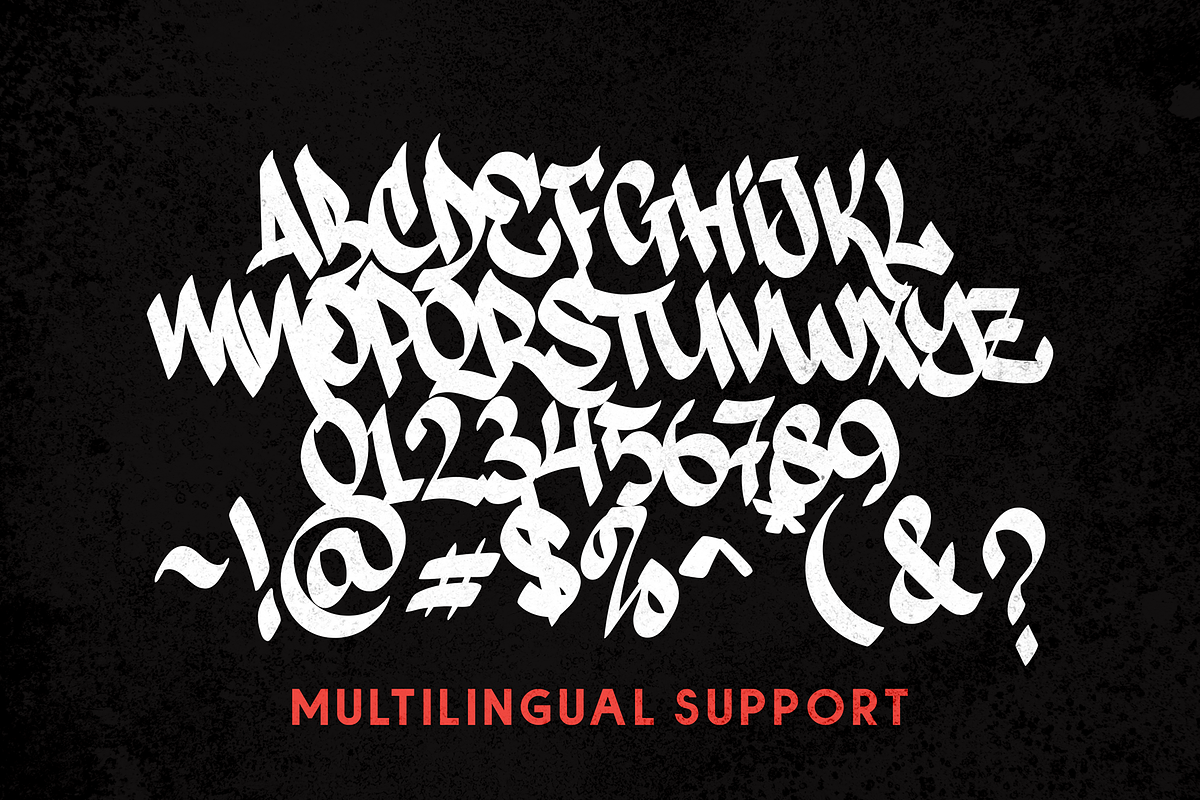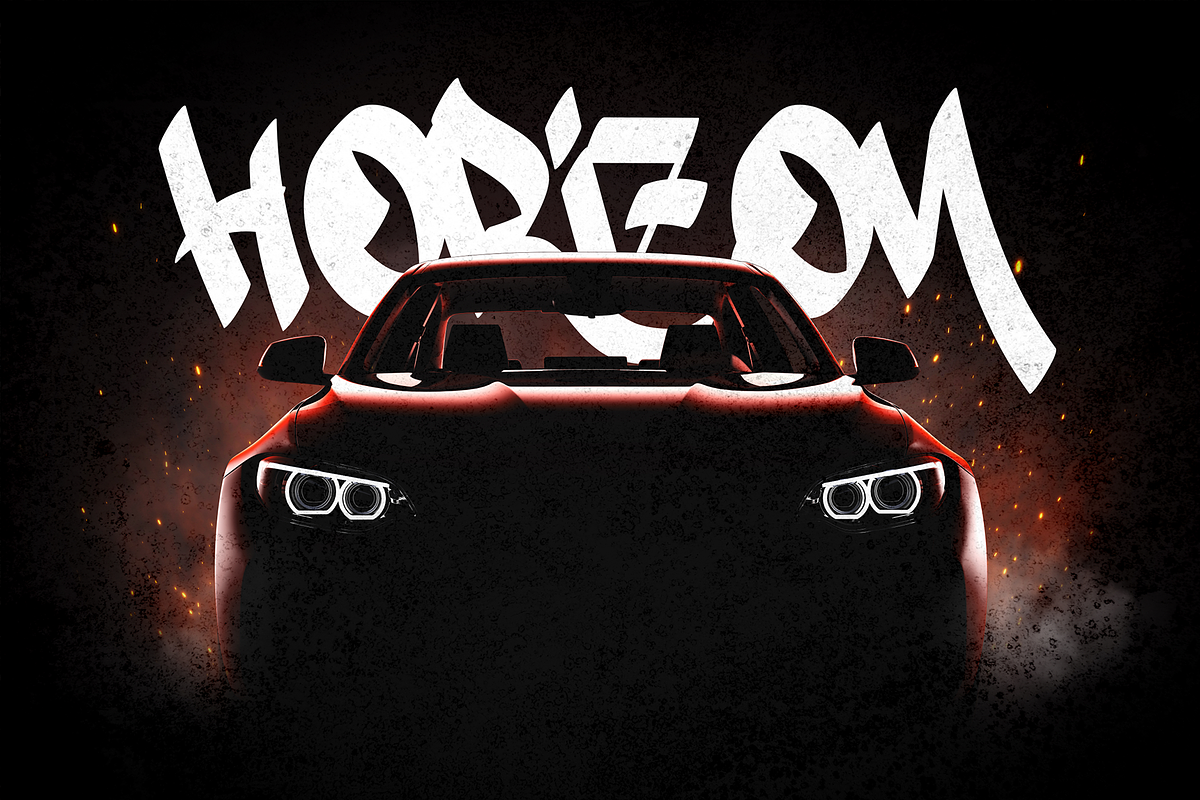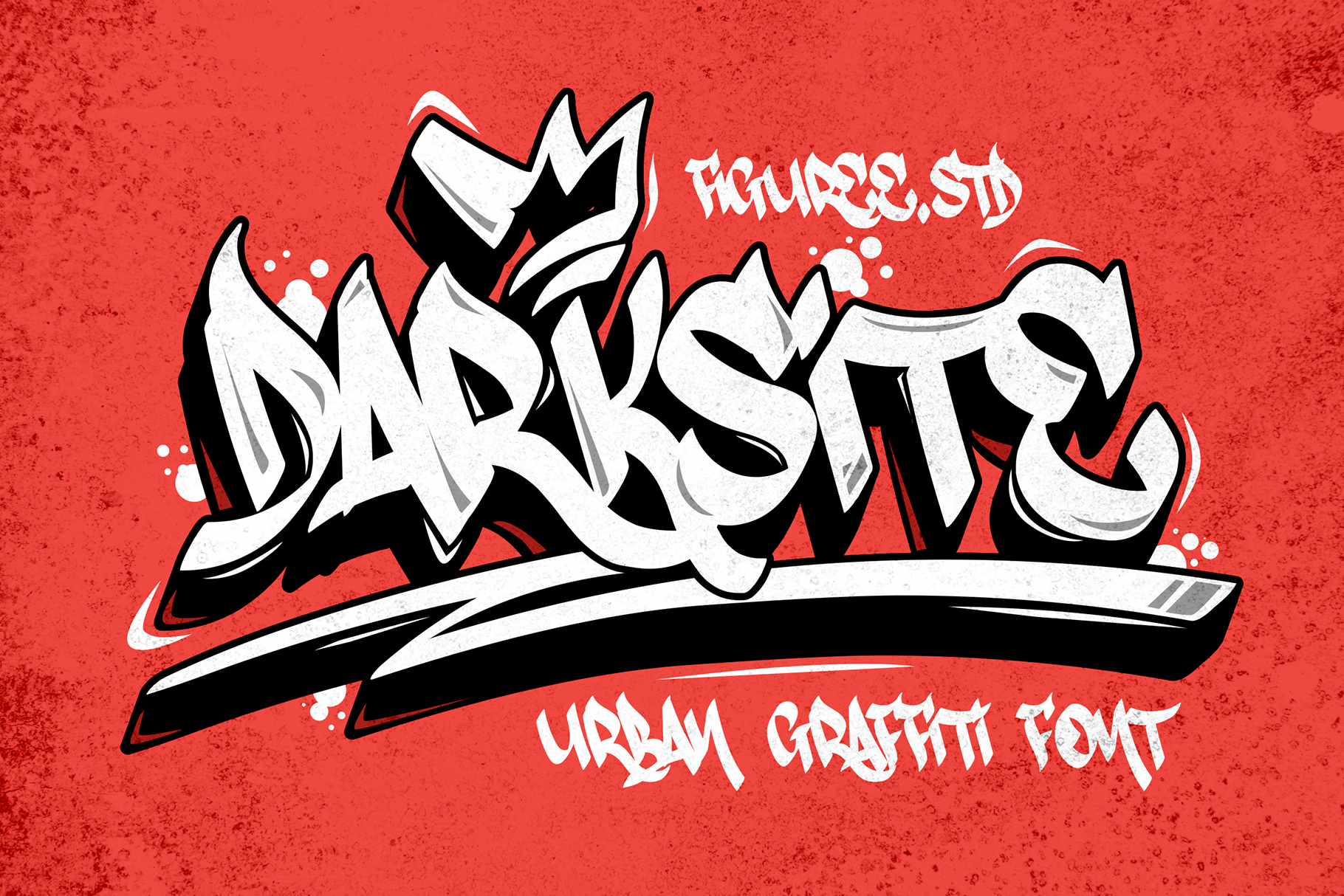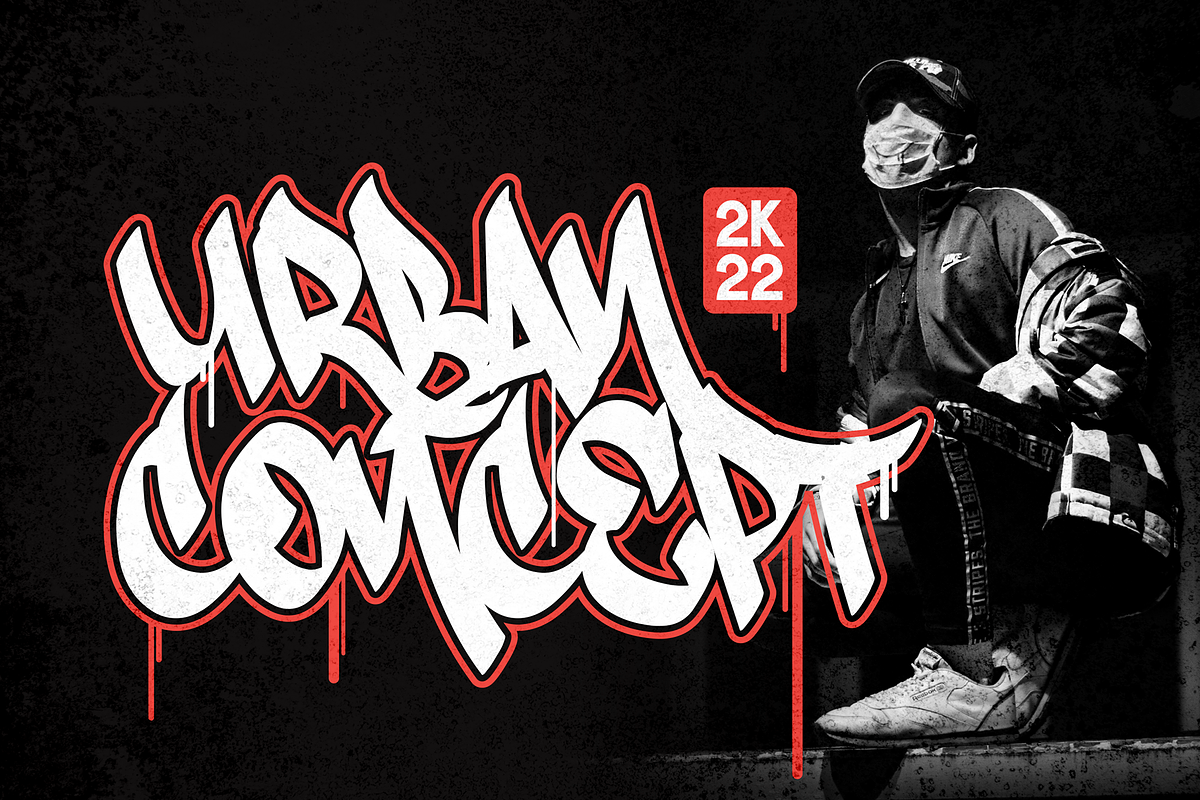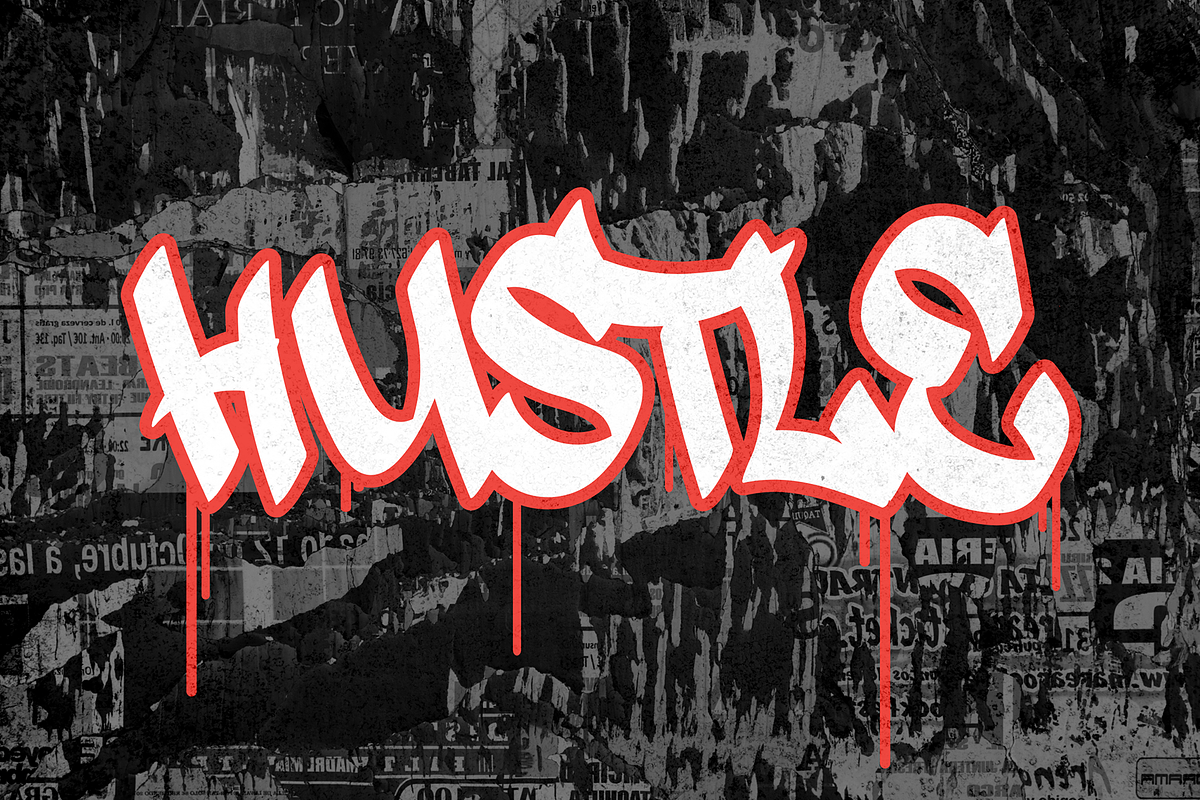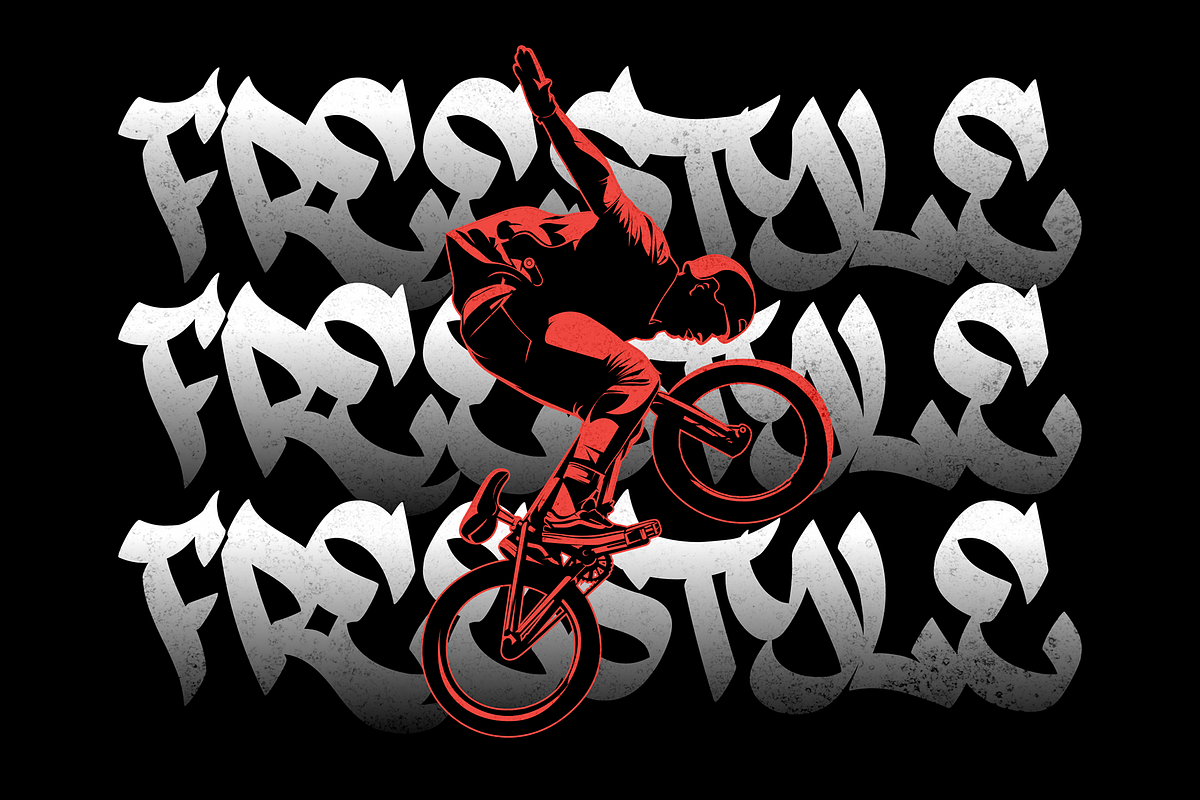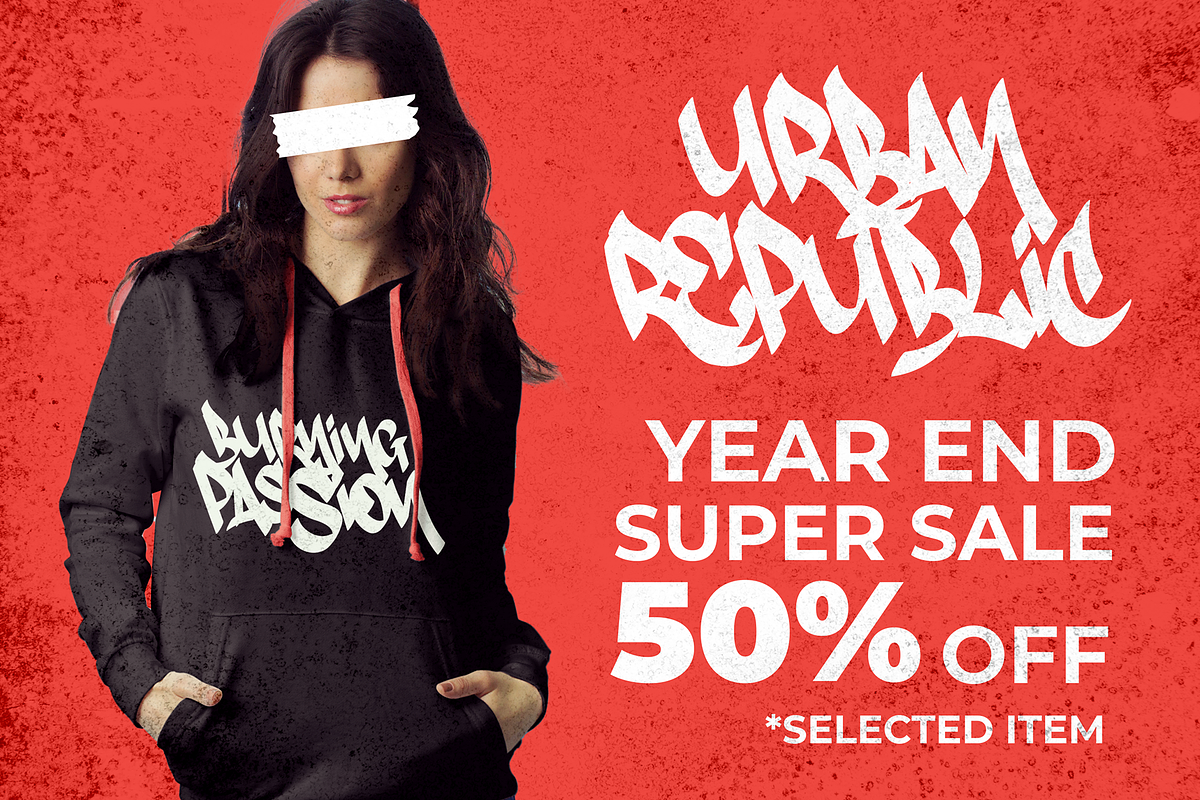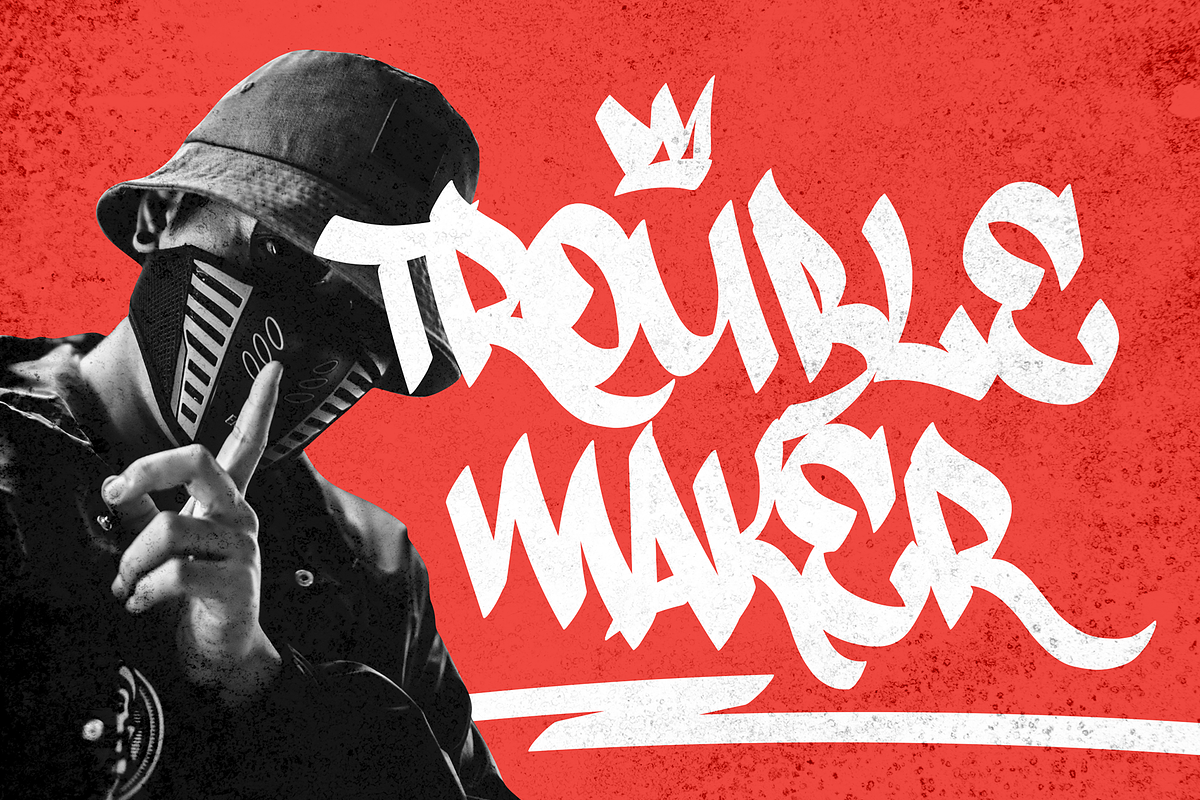
Darksite - Urban Graffiti Font
Hello, this is Darksite - Urban Graffiti Font!
This font was designed so that users can use it more easily and make graffiti designs easier. Darksite is very suitable for use in various media such as; packaging, logos, labels, posters, shirt designs, bulletins, typography, and many other media, especially with graffiti look.
- All-caps
- Bonus Swash